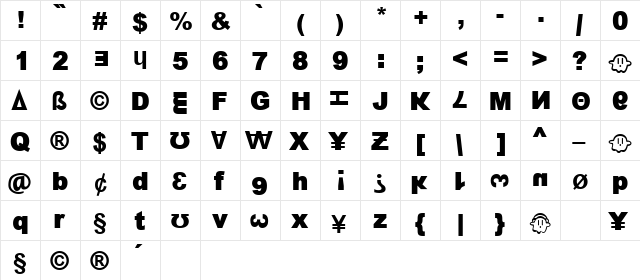
13_Fletcher Regular
| Foundry | 13th Degree |
| Designer | Zane Townsend |
Design Context for 13_Fletcher Typeface
13_Fletcher offers clean, dependable letterforms without strong stylistic allegiance, making it a practical choice for designers who need flexibility.
Pro Tip: Use 13_Fletcher in both headline and body roles to test its range before committing to a single application.